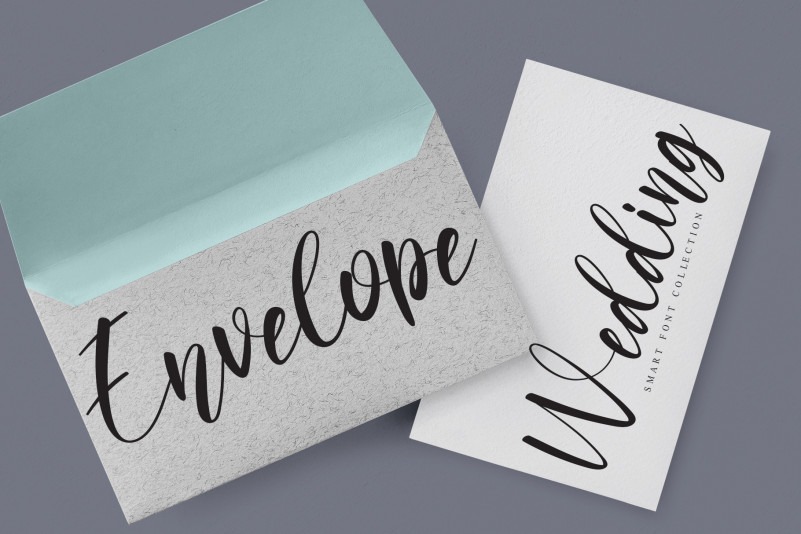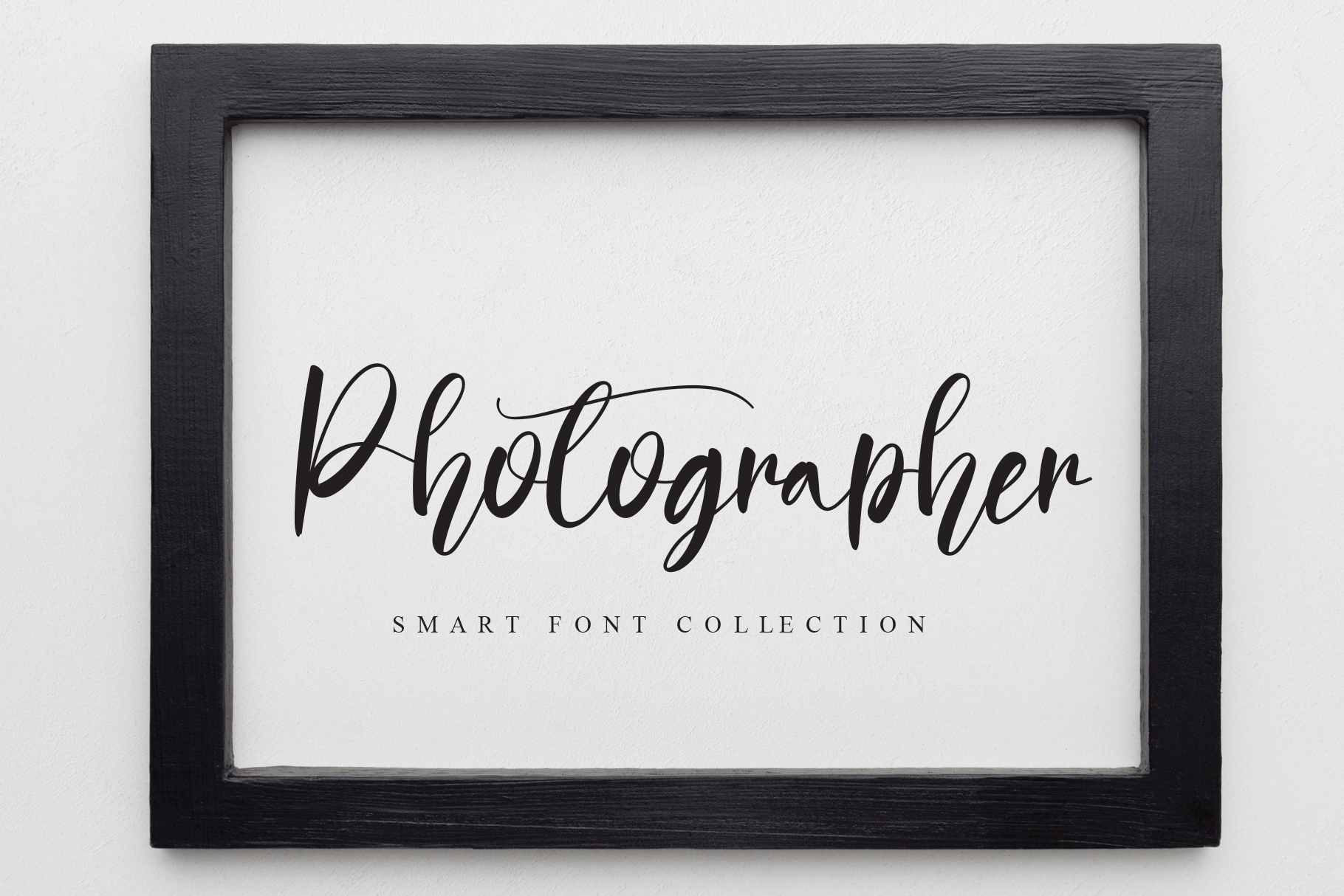
Browncake Font
Browncake Script Font
This is an elegant handwritten font. Use this font with your designs and explore its endless possibilities.
the latest style letters are perfect for wall displays, wedding invitations, social media post logos, advertisements, product packaging, product designs, labels, photography, watermarks, invitations, stationery, and any project that requires taste handwriting.